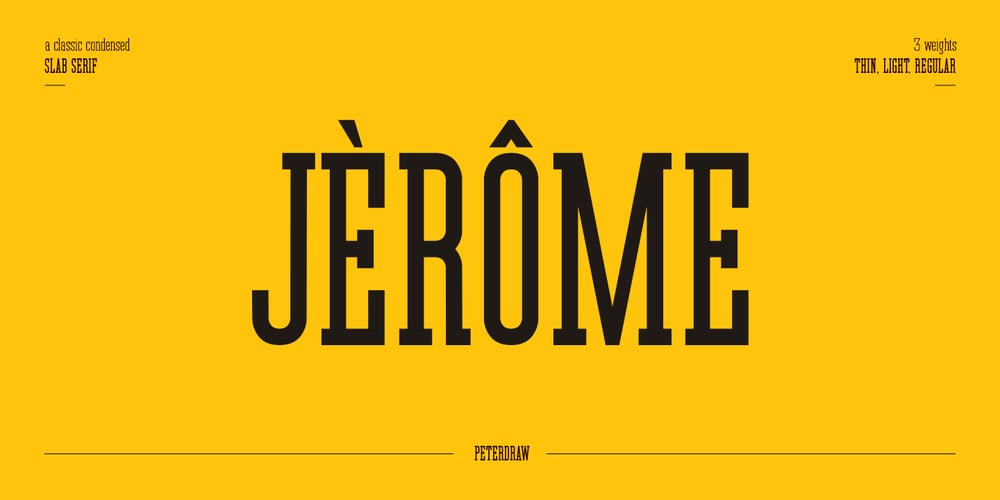
Jerome Font Family was designed by Ahmad Syarif Afandi and published by Peterdraw. Jerome contains 3 styles and family package options. Jerome inspired by compact, strong, and solid font. It comes with 3 weights: Thin, Light, and Regular. Jerome features strong and solid lines, gorgeous glyphs, and stunning styles. It would perfect for logos, magazines, quotes, posters, branding, name card, stationary, design title, blog header, art quote, typography.Features: 3 weights: Thin, Light, and Regular Standard ligatures Small Caps Fractions Ordinals Superscript Subscript We wish you enjoy our font and please don’t hesitate to drop us a message if you have any issues or queries.